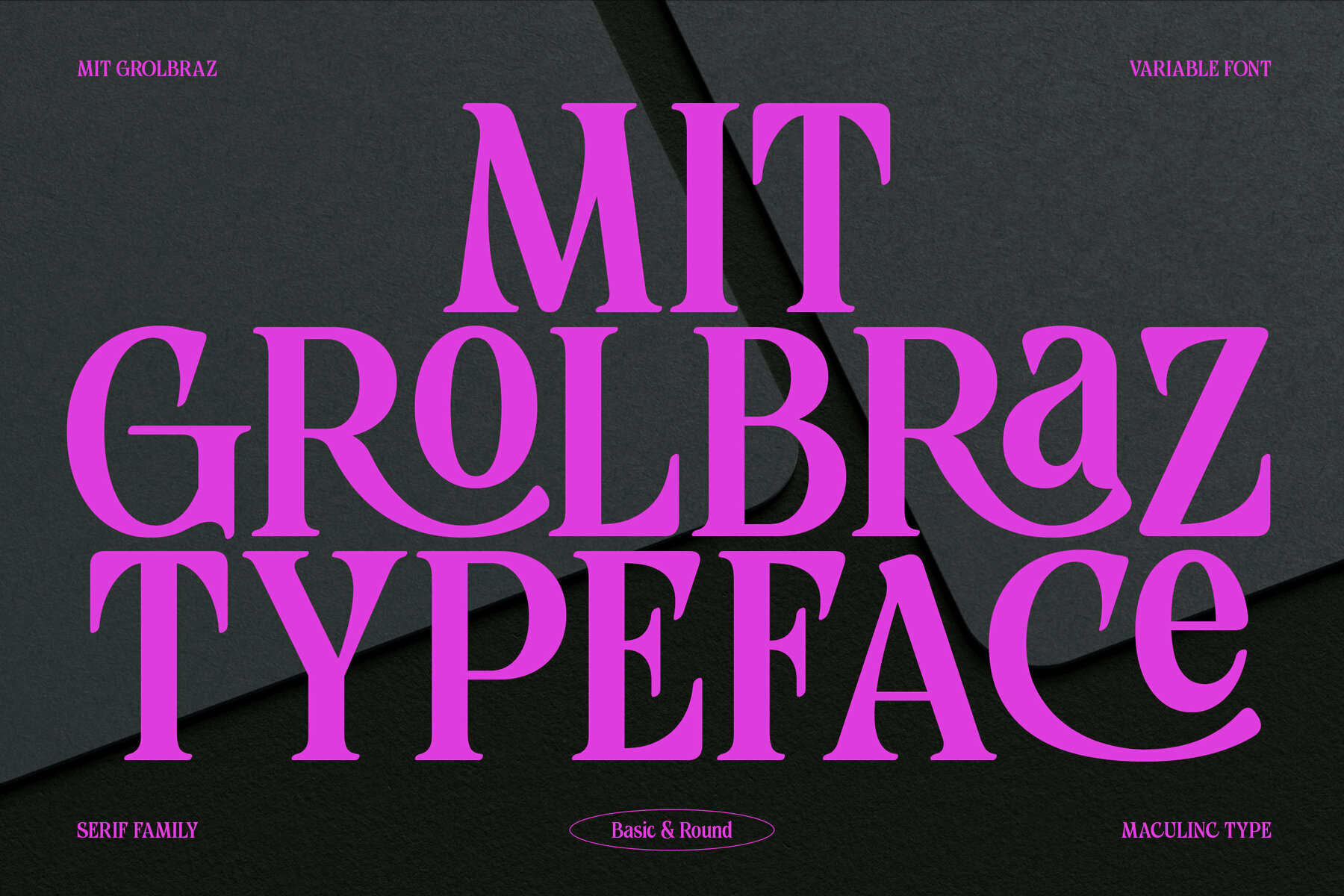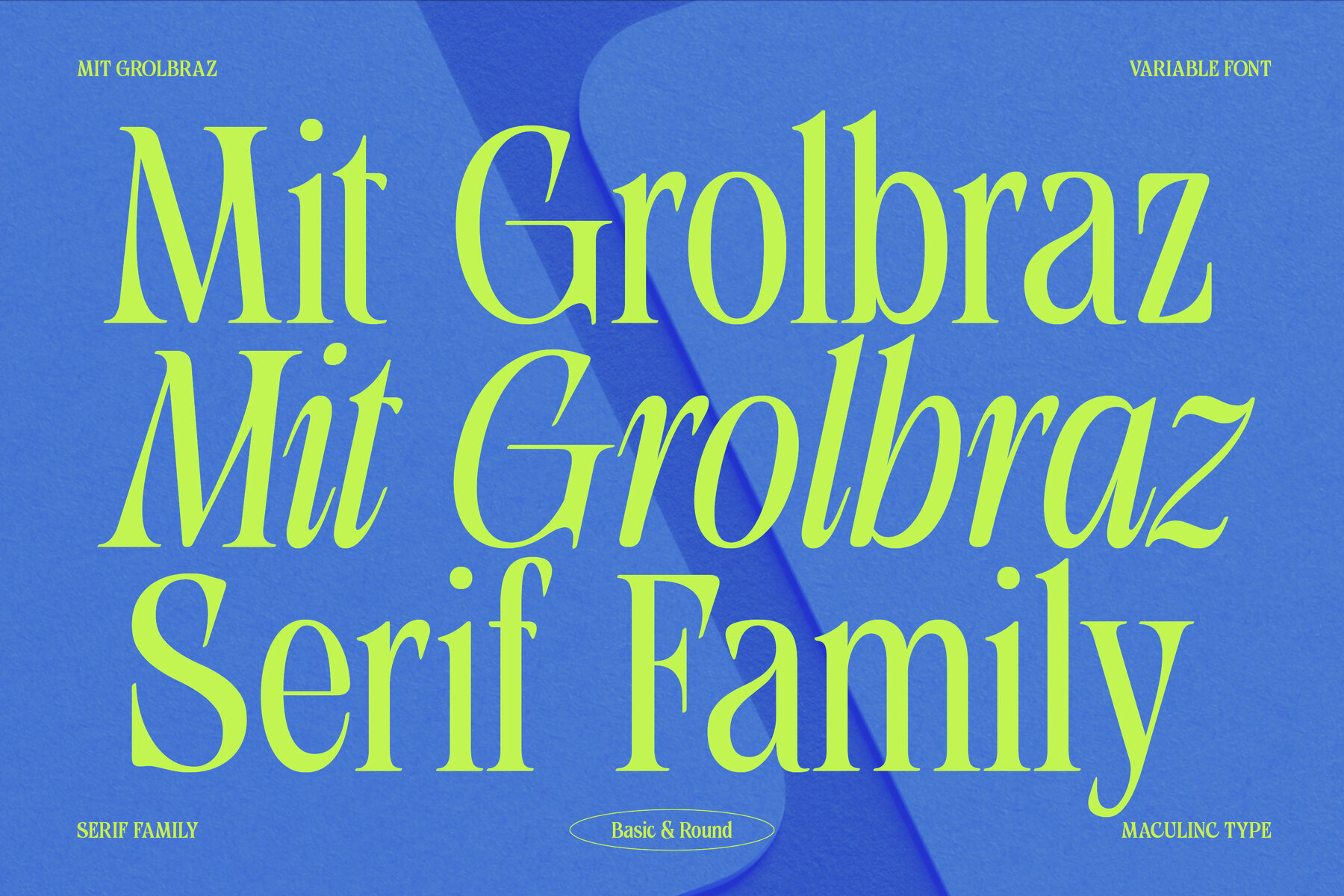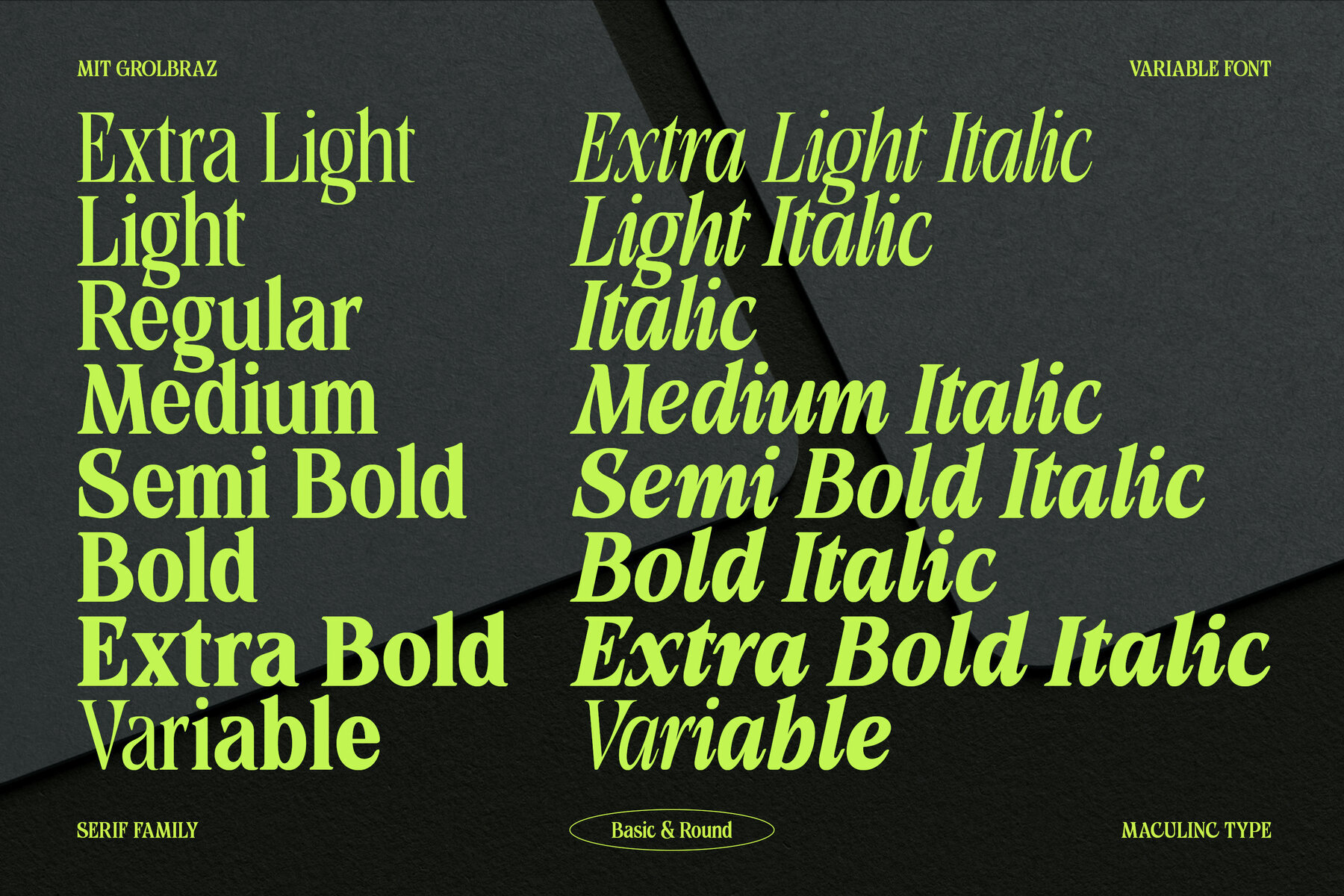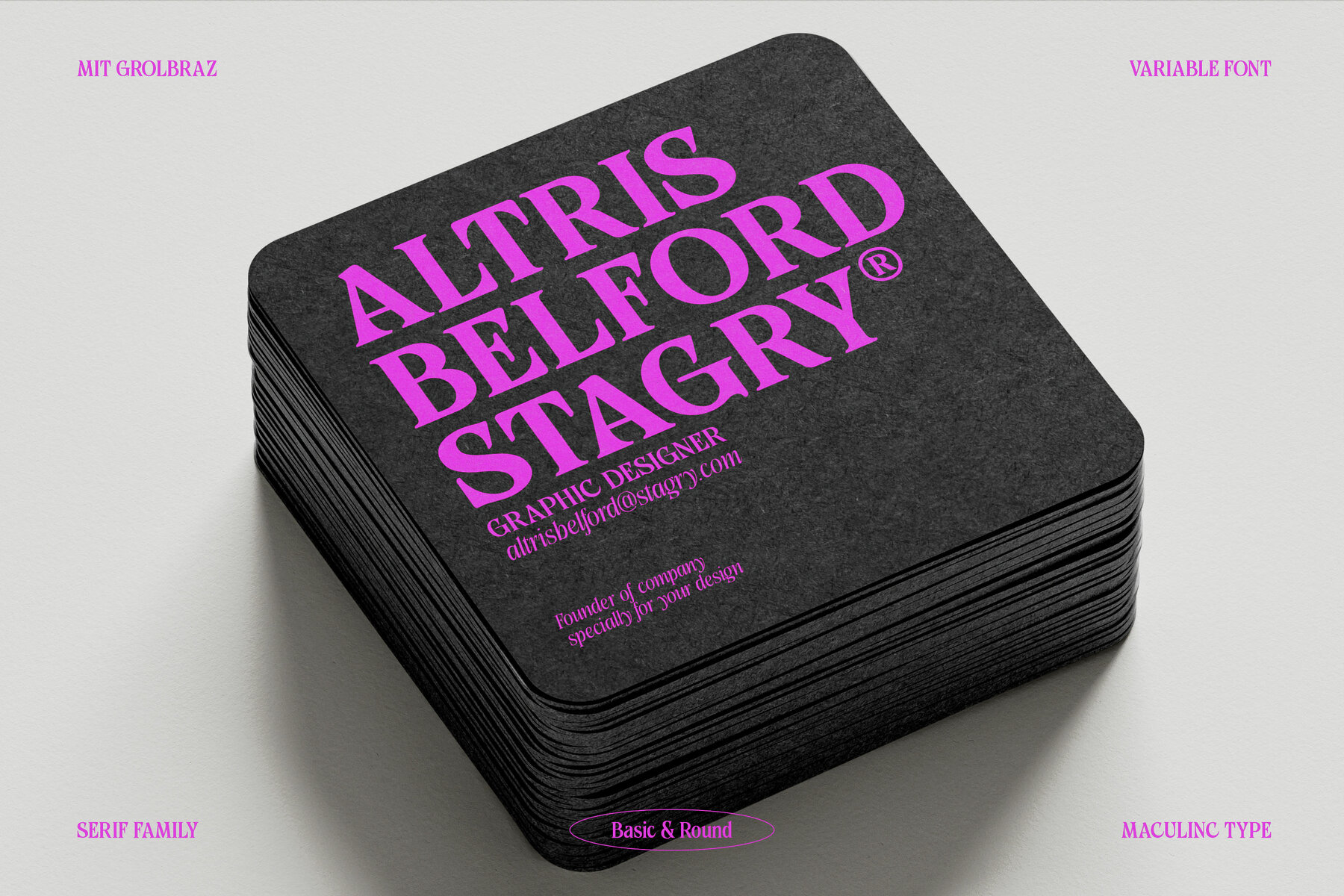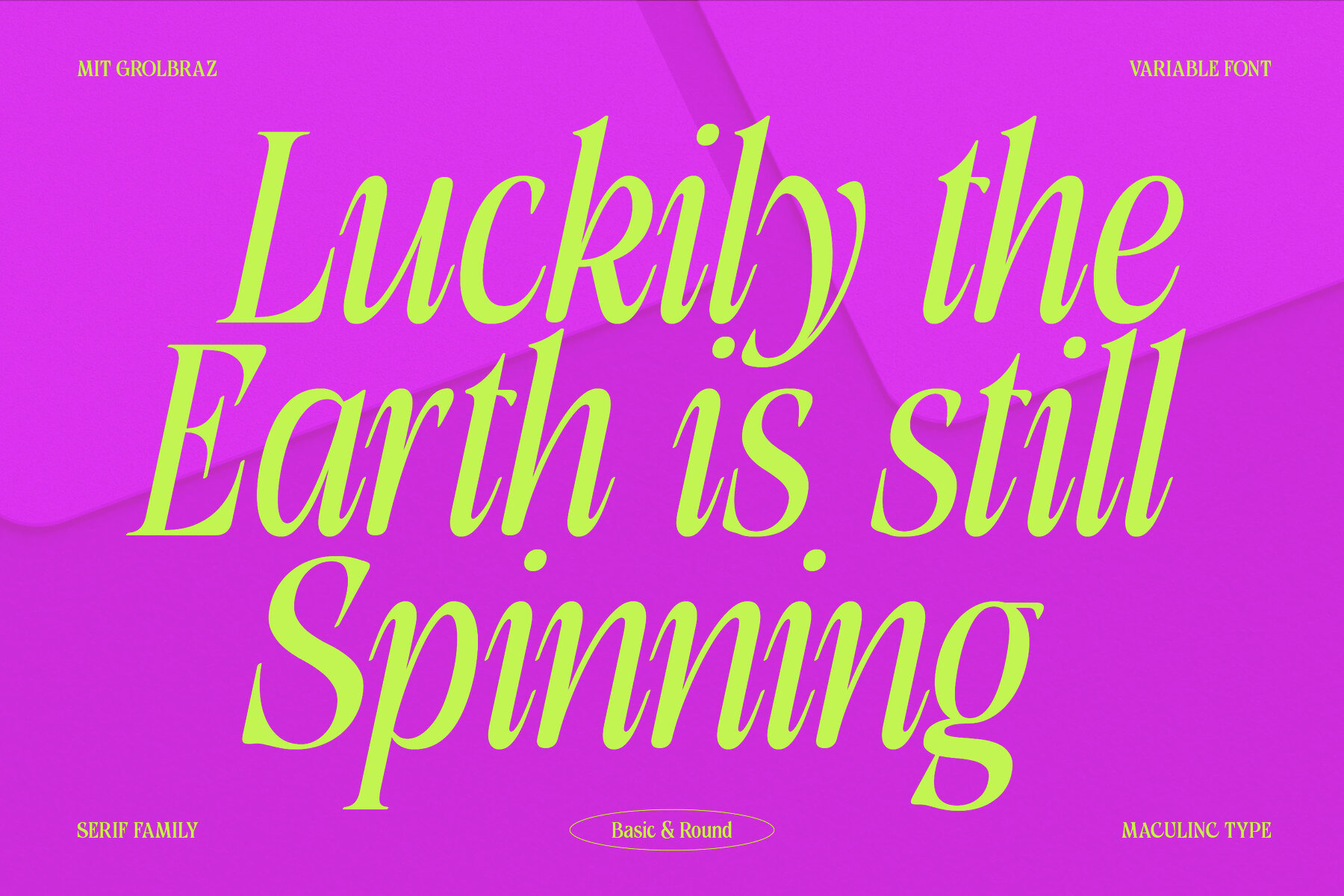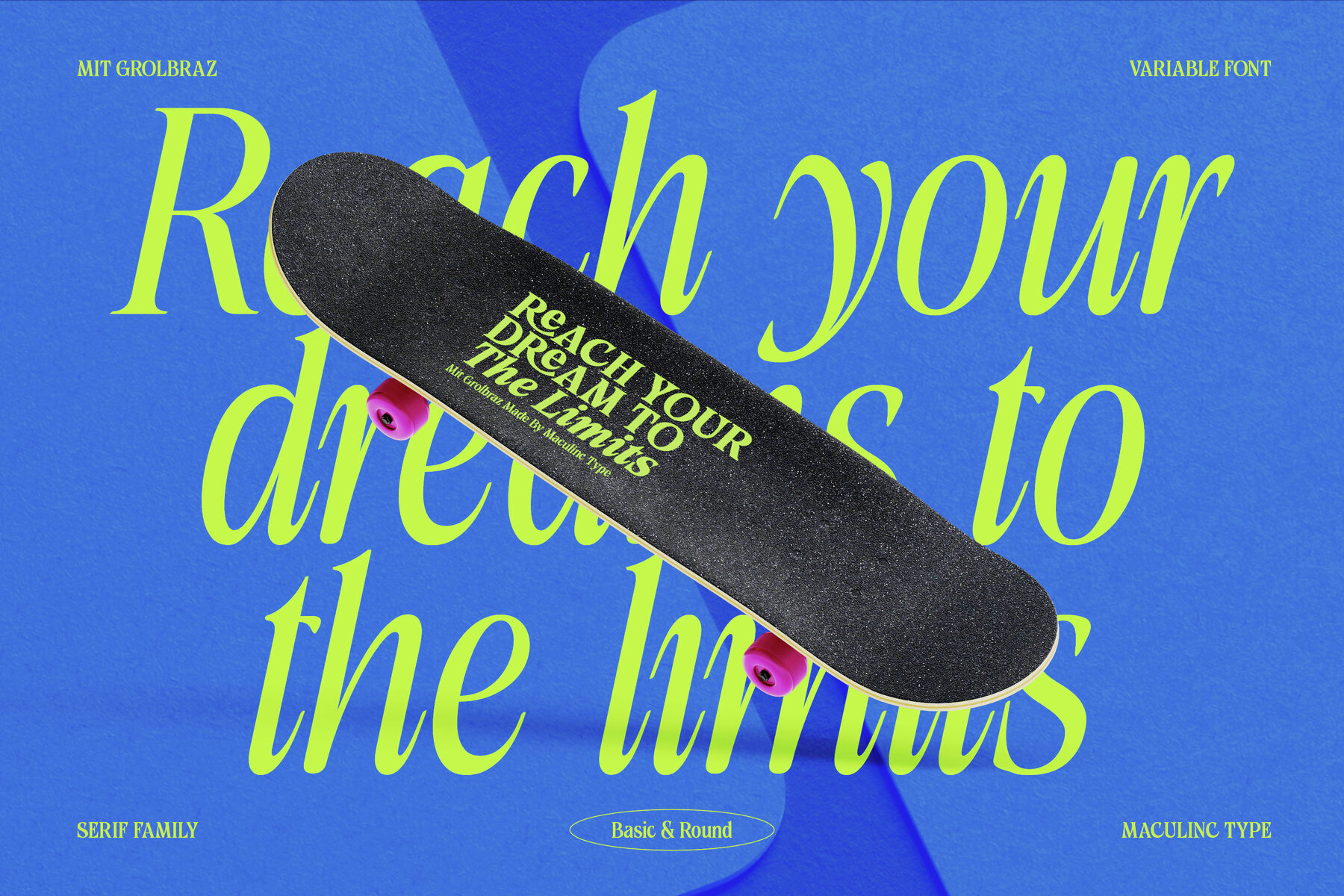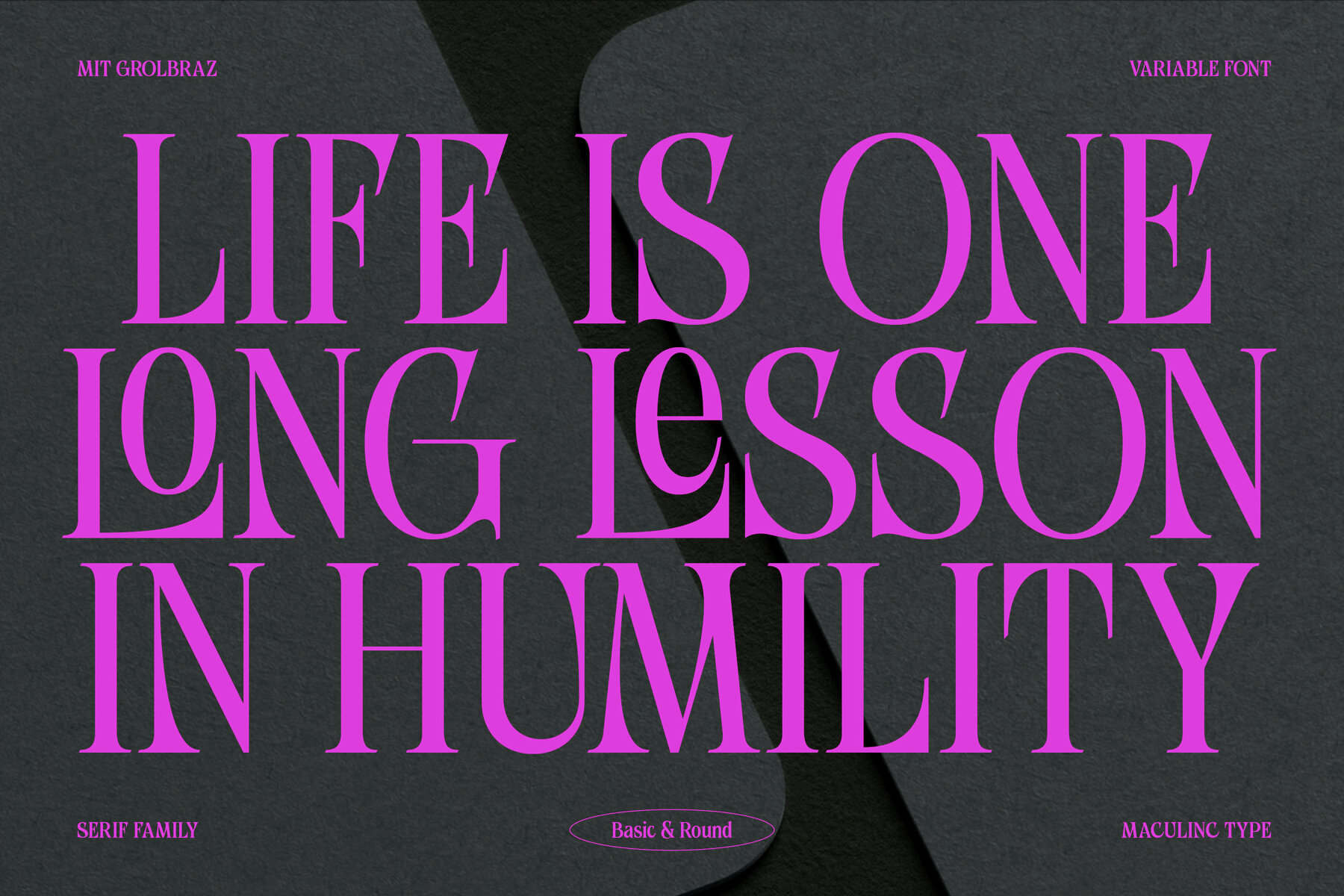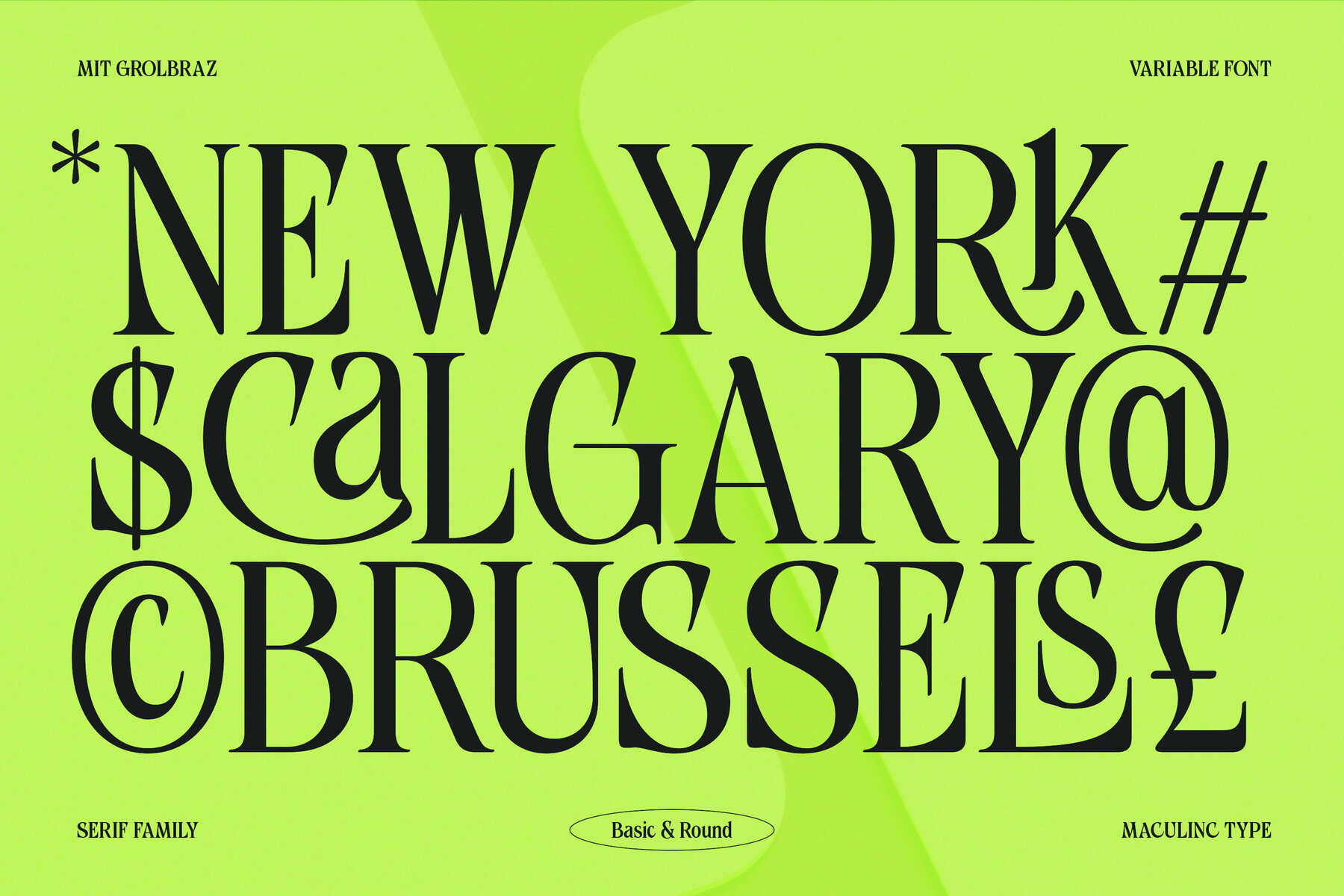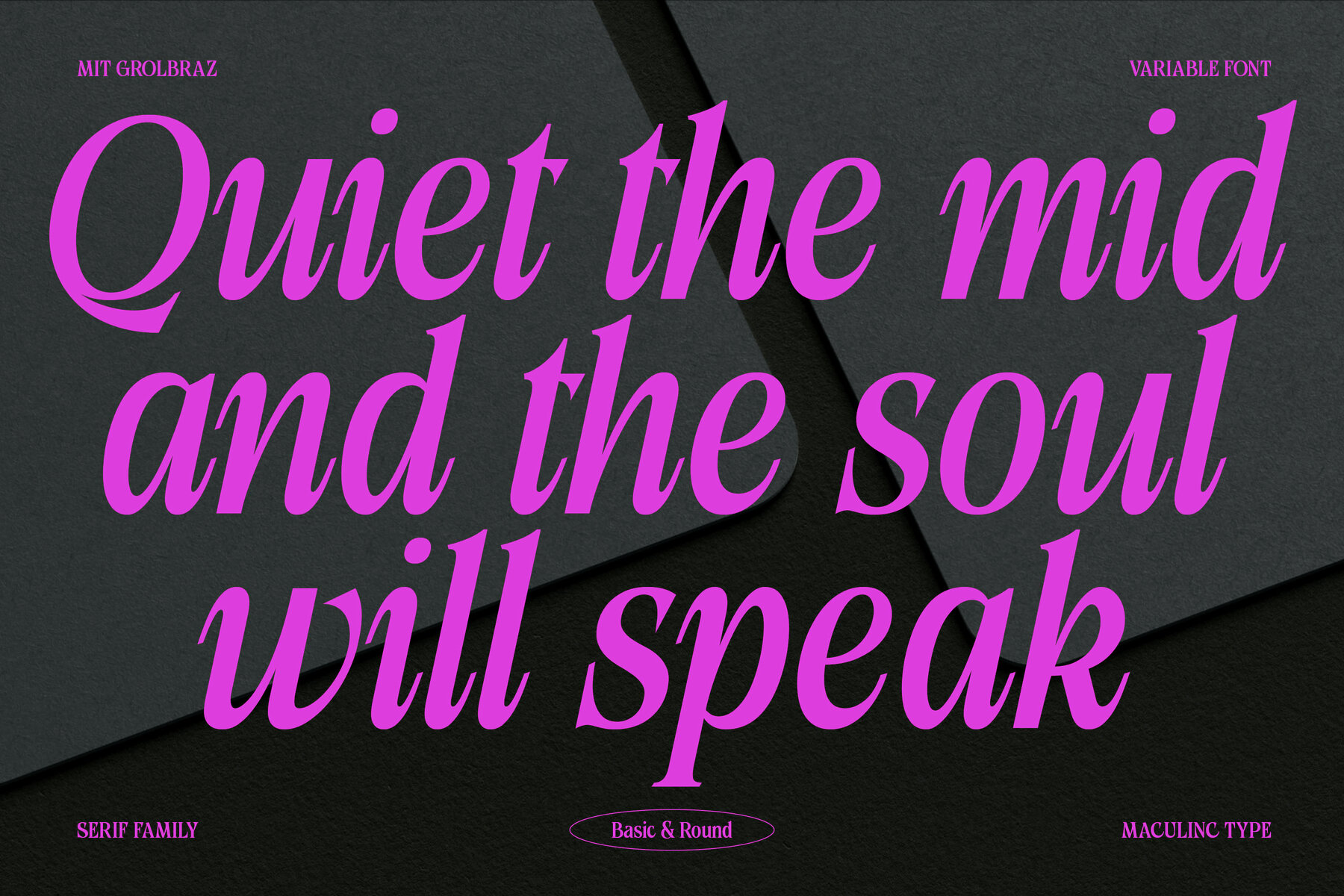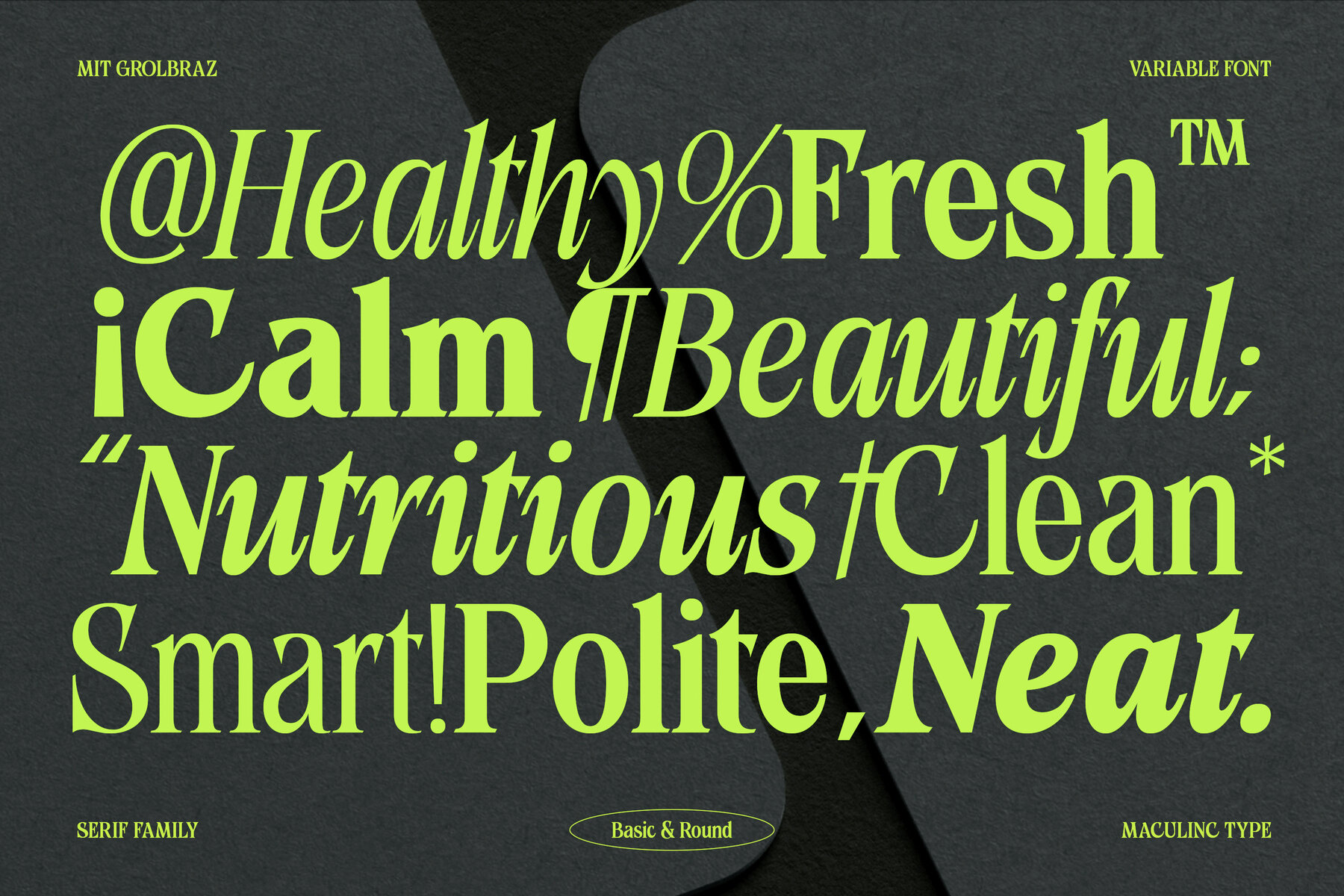
MIT Grolbraz Font
MIT Grolbraz is a refined serif typeface with a moderately thin weight, offering a harmonious, easily adaptable design. Its structure presents a neutral yet distinct character, accommodating uppercase, lowercase, numerals, punctuation, and a broad spectrum of languages, enriched with several ligatures. This family includes a Variable Font and an Italic version, all featuring aligned terminals and balanced strokes. The MIT Grolbraz collection comprises both original and round styles, differing only in angularity, which introduces versatility to the same core identity. The name is a unique creation, reflecting a quest for practicality and distinct aesthetics in design endeavors. With a broad character set, diversified styles, and extensive language support, MIT Grolbraz caters to varied design projects, from template to app design. Its adaptability extends to branding, packaging, and print applications, with remarkable readability in both running text and large displays. Features:MIT Grolbraz: A Versatile Serif Family